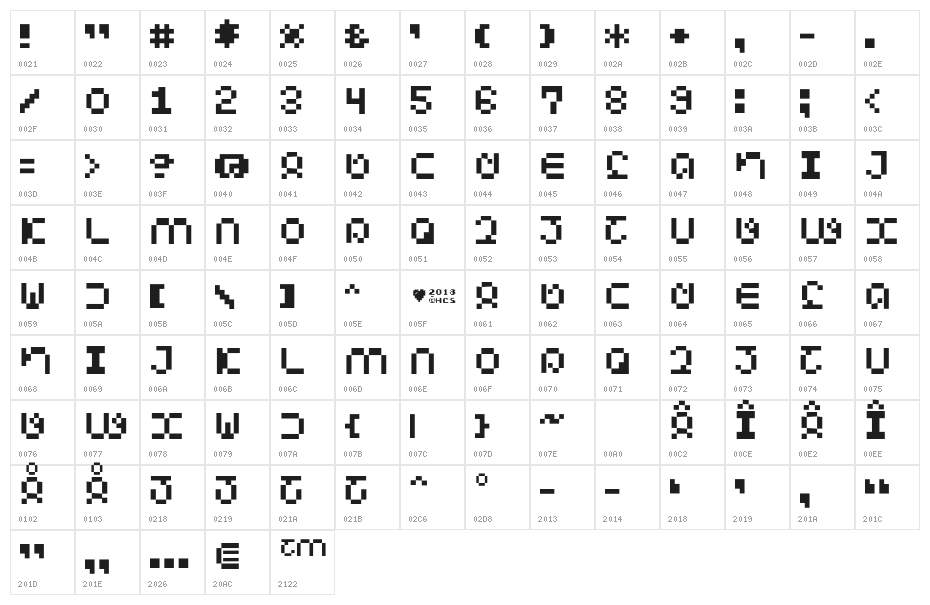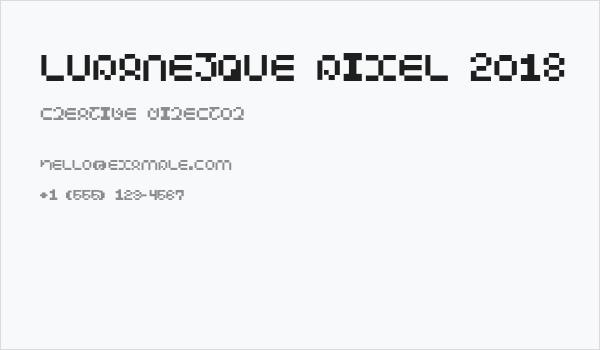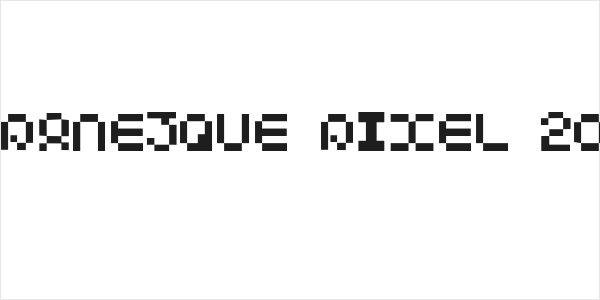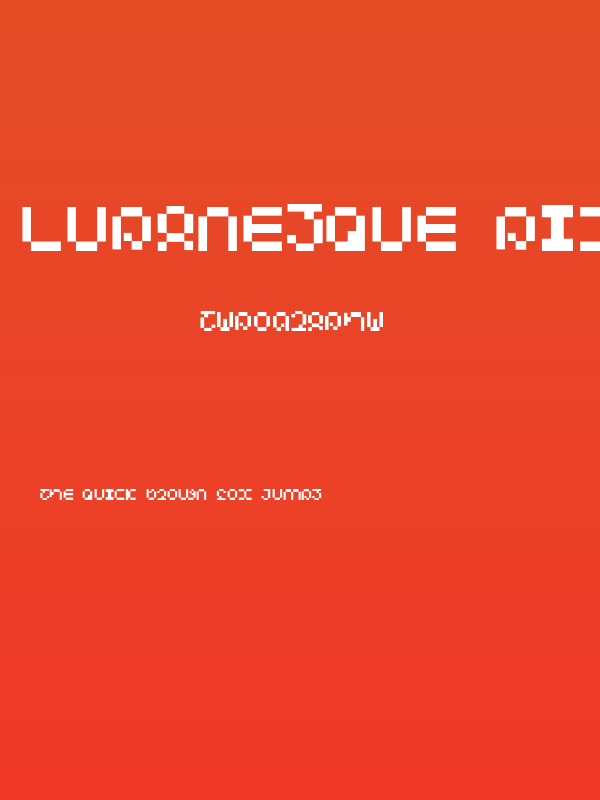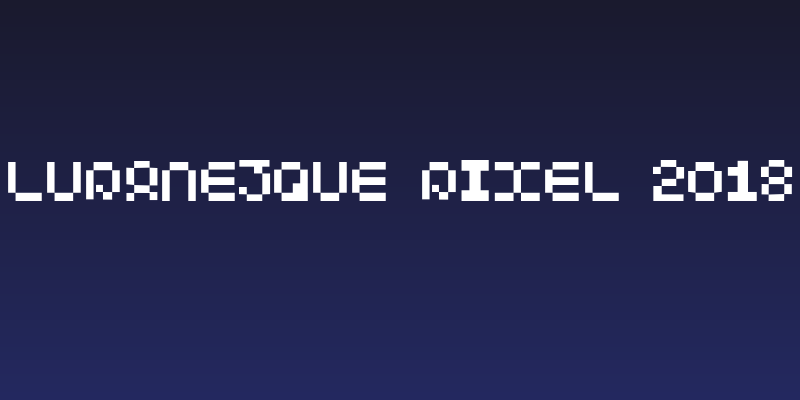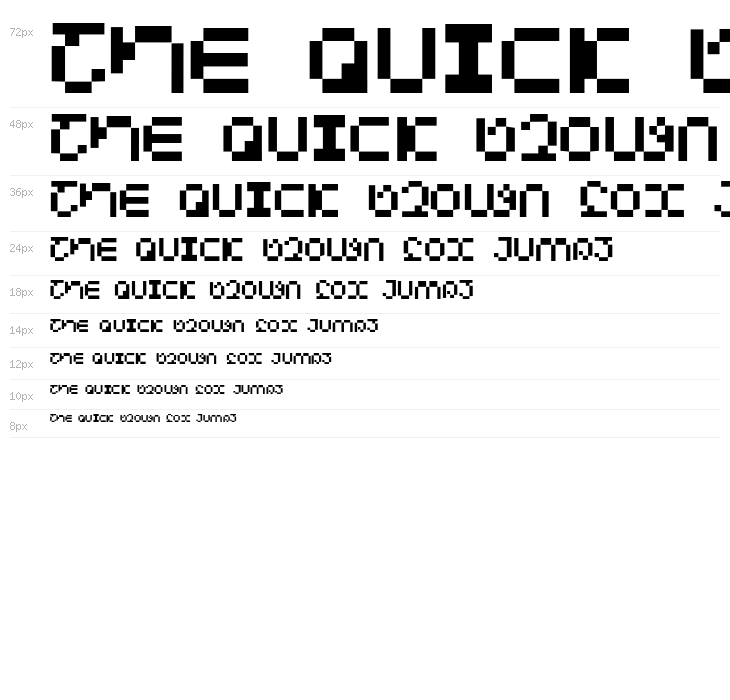
Lupanesque Pixel 2018 Font
Lupanesque Pixel 2018 Description
This font features a distinct pixelated design, reminiscent of early digital displays and video game graphics. Each character is composed of a grid of square pixels, creating a retro, blocky appearance. The uniformity in pixel size across all characters gives it a cohesive and structured look. Despite its simplicity, the font maintains legibility and a unique charm, making it suitable for projects that aim to evoke nostalgia or a digital aesthetic. The characters are evenly spaced, contributing to a clean and organized presentation.
| Overall Style | Retro, Digital |
| Use Case | Headlines, Logos, Digital displays |
| Proposed Projects | Ideal for retro video games, digital art projects, tech-themed posters, and nostalgic branding. |